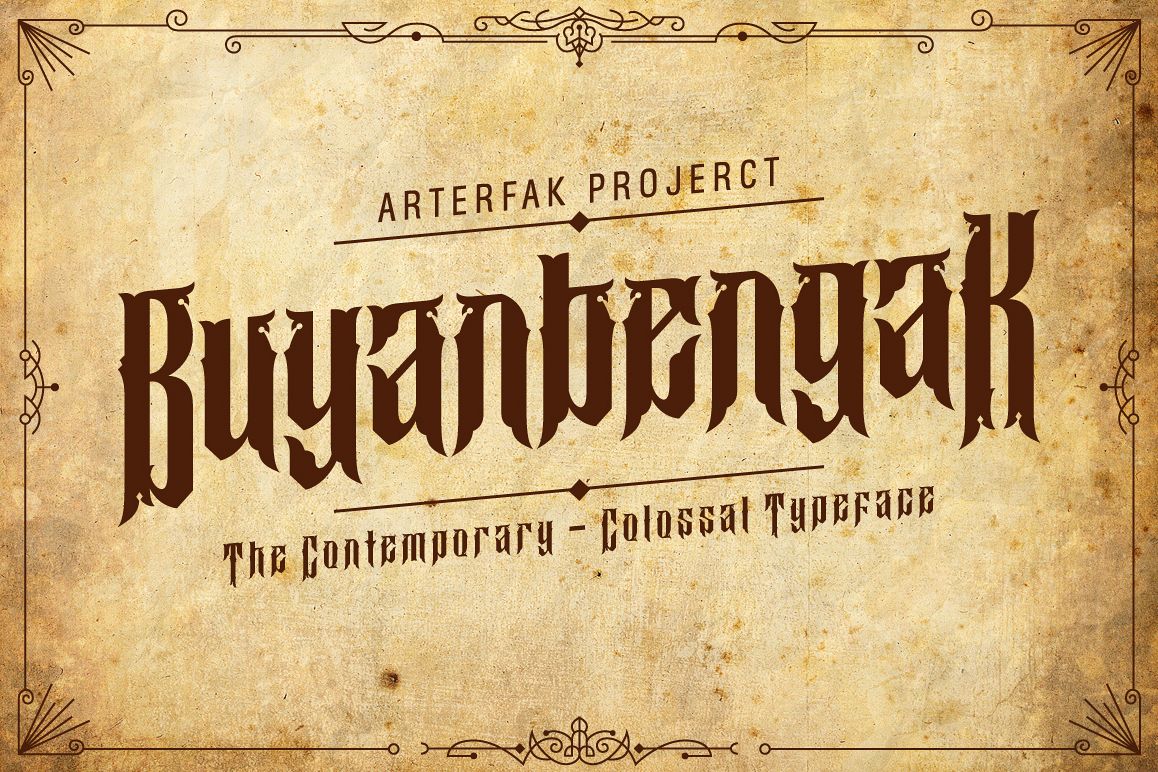
Buyanbengak Typeface
Buyanbengak-Regular
BUYANBENGAK TYPEFACE
The ornamental typeface, inspired from old manuscript and gothic style. Looks good for you who passionate in traditional or ornamental style. Elegant and clearly to use for your poster, books, flyer, quotes and etc. Tested on Adobe Illustrator, Photoshop, InDesign and etc.